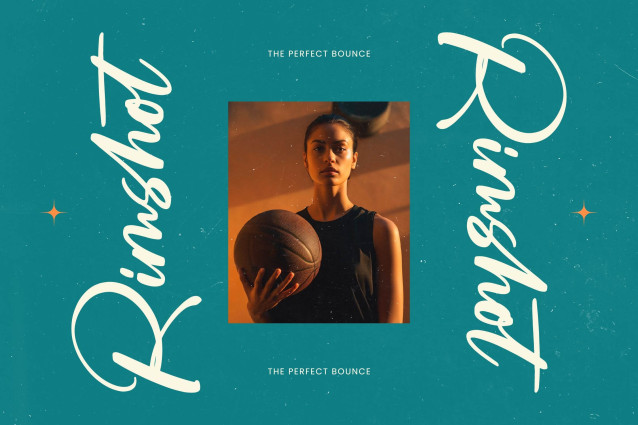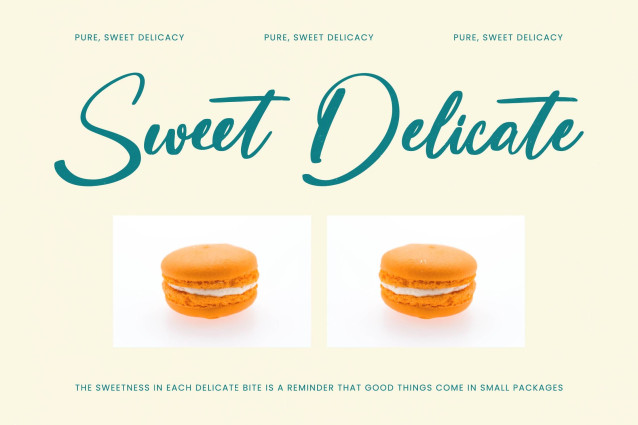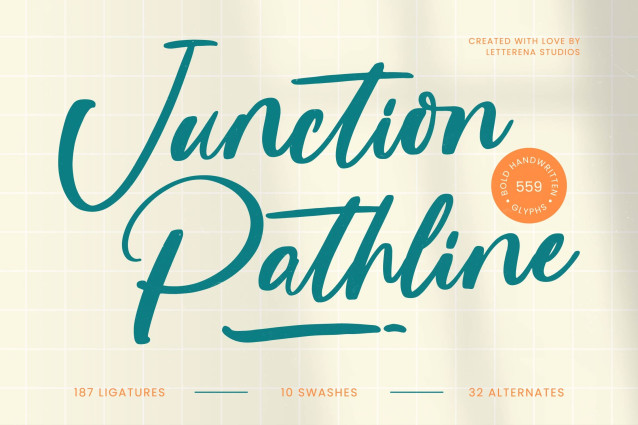
Junction Pathline Font
Junction Pathline – Bold Handwritten Font , from Letterena, is a Luxury Script font, suitable for any projects such as: logos, branding projects, homeware designs, product packaging, mugs, quotes, posters, shopping bags, t-shirts, book covers, name card, invitation cards, greeting cards, label, photography, watermark, special events, and all your other luxury and beautiful projects that need a Luxury Script taste.